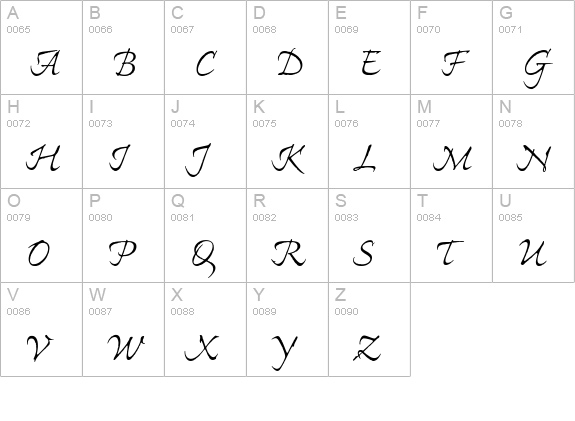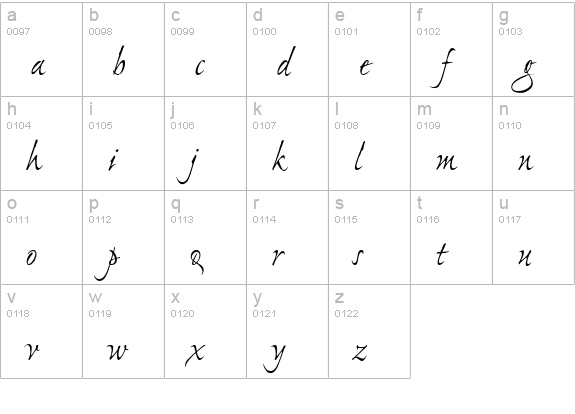
ExPonto Font Details
ExPonto font is a versatile and elegant typeface that strikes the perfect balance between modernity and classic charm. Its clean lines and distinct letterforms make it suitable for a wide range of design projects, from branding to editorial design. The font exudes a sense of sophistication and professionalism, making it ideal for conveying a refined aesthetic. What sets ExPonto font apart is not only its timeless appeal but also its accessibility. This exquisite typeface is available for free download at FontsMarket.com, allowing designers and creatives to easily incorporate its beauty into their work without any cost. Whether you're looking to add a touch of elegance to your next project or simply appreciate the artistry of well-crafted typography, ExPonto font is sure to impress. Download it today and elevate your designs with this exquisite typeface.